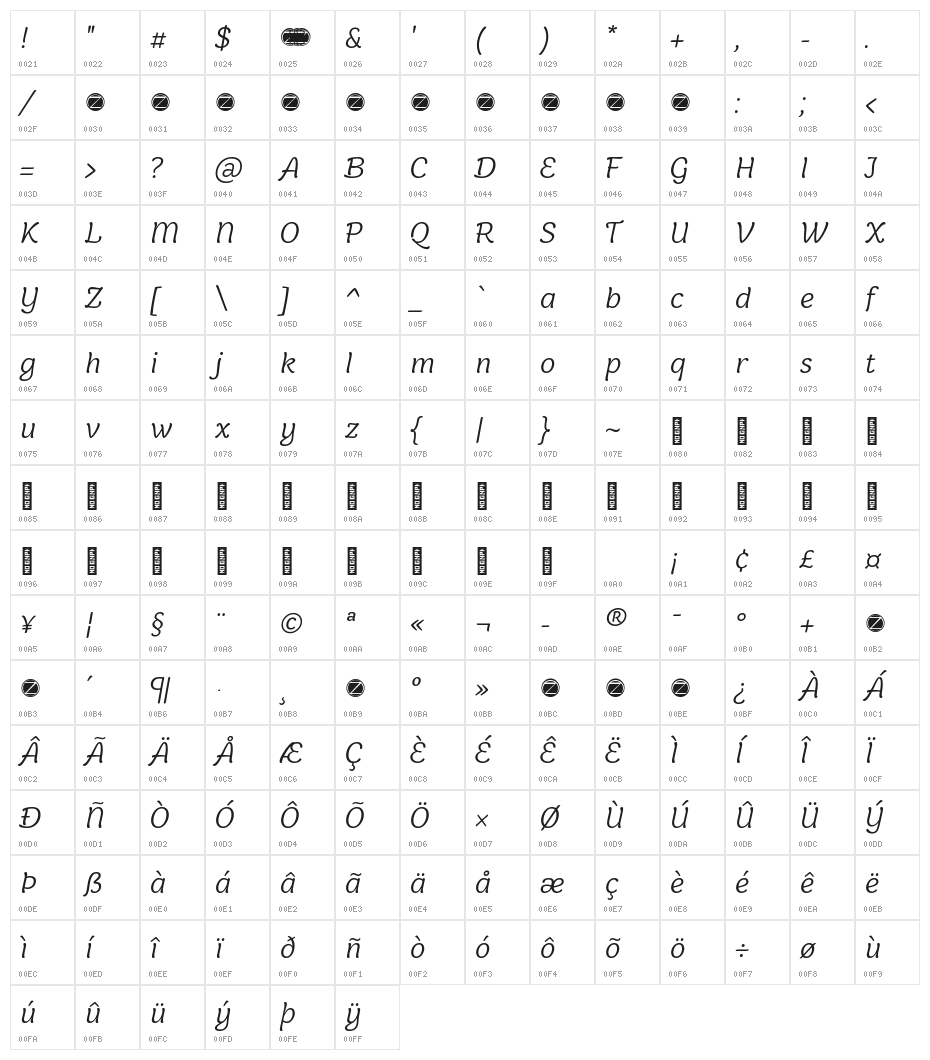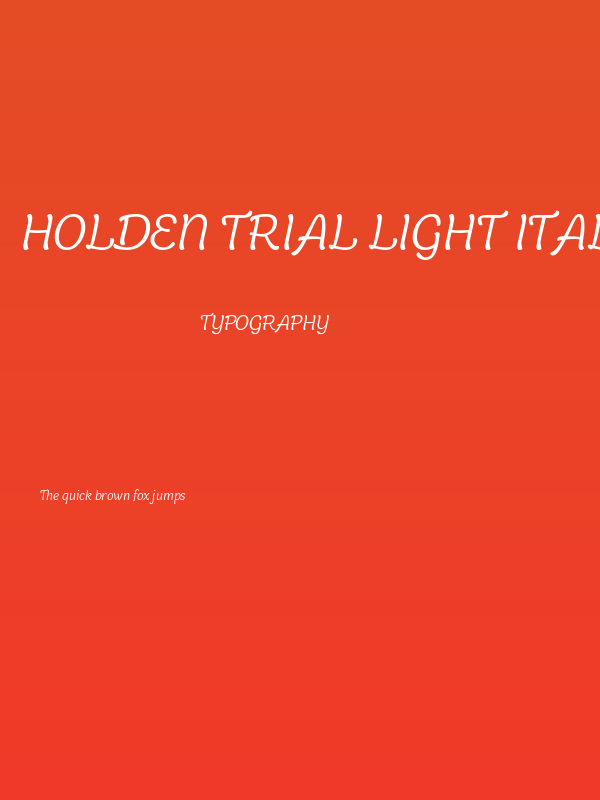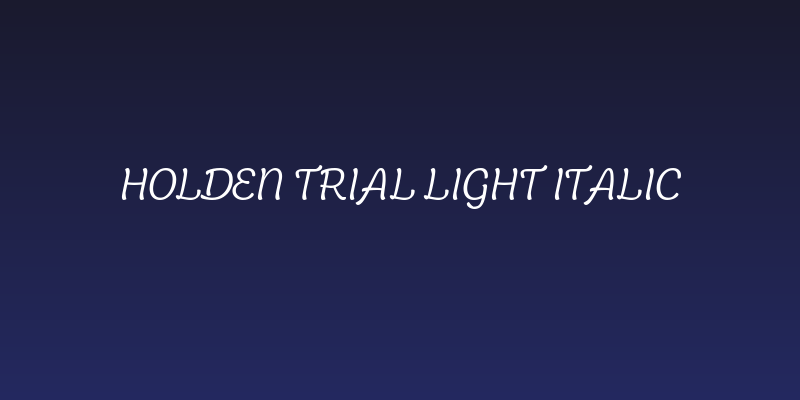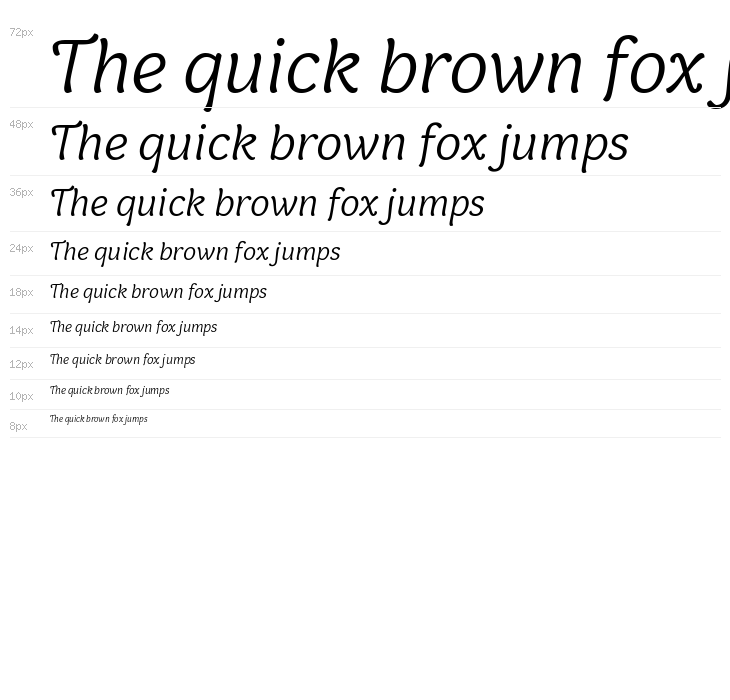
Holden Trial Light Italic Font
Holden Trial Light Italic Description
This font exhibits a graceful and fluid style, characterized by its elegant curves and smooth transitions. The letters are slightly slanted, giving it an italicized appearance that adds a sense of motion and sophistication. The strokes are consistently thin, contributing to a light and airy feel. The uppercase letters maintain a classic formality, while the lowercase letters offer a more casual and approachable look. The special characters and numerals are designed to complement the overall aesthetic, ensuring a cohesive appearance across all text. This font's delicate nature makes it suitable for projects that require a touch of elegance and refinement.
| Use Case | Headlines, Invitations, Branding |
| Proposed Projects | Ideal for wedding invitations, elegant branding, fashion magazines, and upscale product packaging. |